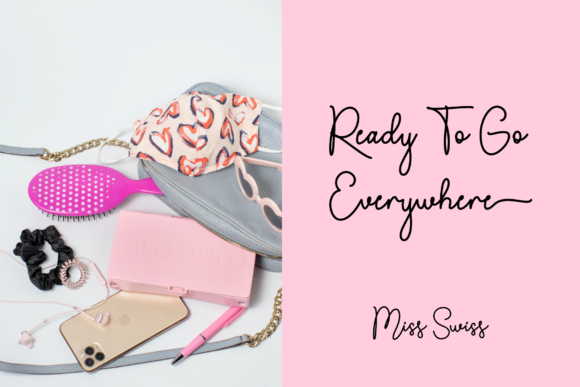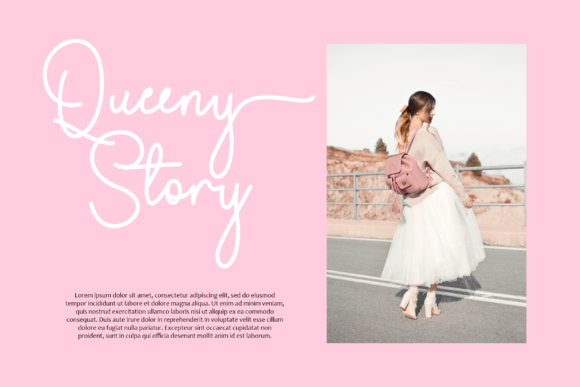
Molly Lips Font
db-ku.com - Script & Handwritten -- Molly Lips is the ideal font for adding a chic and cheerful touch to your crafts. It is PUA encoded which means you can access all the glyphs and swashes with ease!